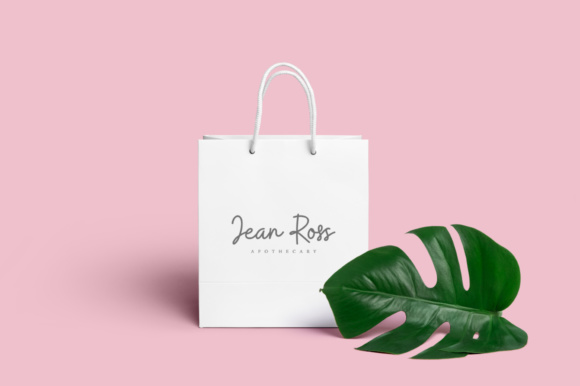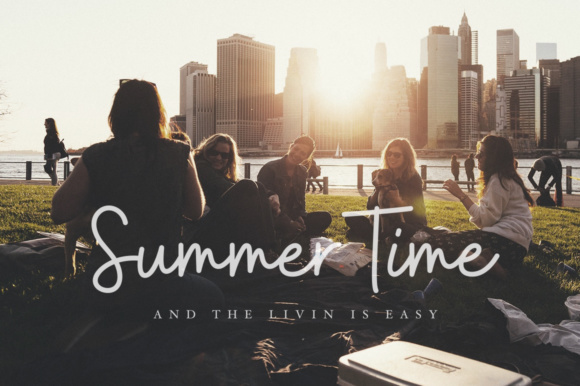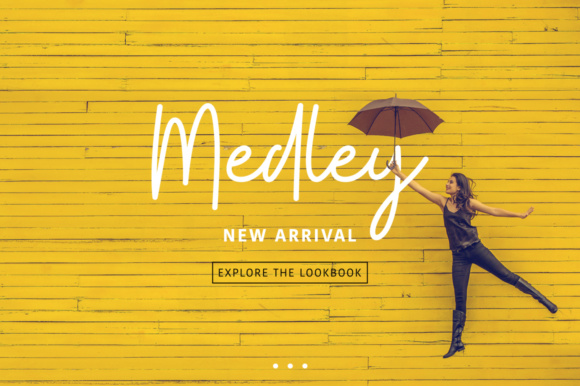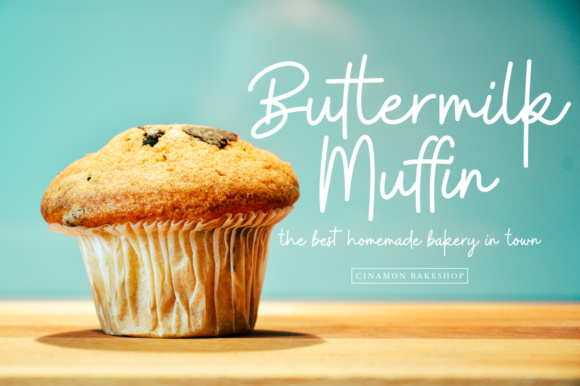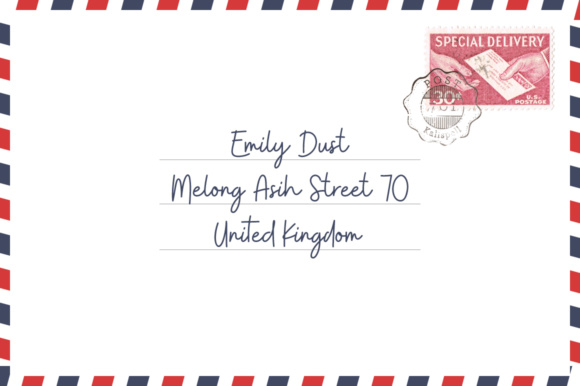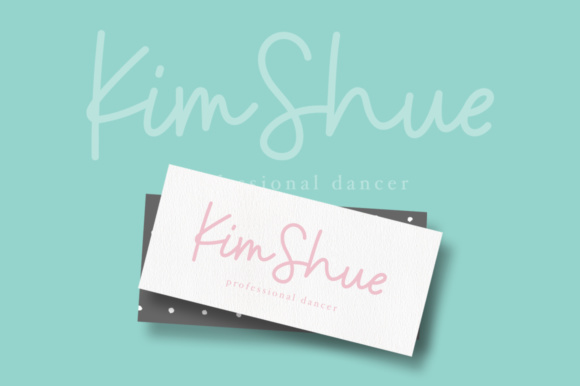
Introducing Buffalo Font: The Elegant Handwritten Font for Creative Projects
Are you a designer, crafty person, or simply someone who appreciates beautiful typography? Look no further than the Buffalo Font, a stunning handwritten font that can elevate your creative projects to the next level. With its elegant and striking letters, Buffalo is perfect for a wide range of applications, from greeting cards and magazines to branding, social media, print, packaging, and much more.
What Makes Buffalo Font So Special?
Buffalo Font is a unique and eye-catching typeface that stands out from the crowd. Its elegant and flowing script is reminiscent of traditional handwriting, yet it has a modern and sophisticated feel that makes it perfect for contemporary designs. The font’s distinctive characters, precise letter spacing, and balanced typography create a harmonious visual experience that will leave a lasting impression on your audience.
Perfect for a Wide Range of Creative Projects
Buffalo Font’s versatility is one of its greatest strengths. Whether you’re designing a greeting card, magazine, or social media post, this font will add a touch of elegance and sophistication to your work. Here are some ideas for projects where Buffalo Font would shine:
- Greeting Cards: Create beautiful, one-of-a-kind greeting cards for special occasions like weddings, birthdays, and holidays.
- Magazines and Editorials: Add a touch of elegance to your magazine or editorial design with Buffalo Font’s sophisticated script.
- Branding and Logo Design: Use Buffalo Font to create a unique and memorable brand identity that sets you apart from the competition.
- Social Media Graphics: Elevate your social media presence with stunning graphics featuring Buffalo Font.
- Print and Packaging: Use Buffalo Font to add a personal touch to your print materials, such as business cards, brochures, and product packaging.
Why Choose Buffalo Font?
With so many fonts available, why choose Buffalo Font? Here are just a few reasons why designers and crafters love this beautiful handwritten font:
- Unique and Eye-Catching: Buffalo Font’s distinctive script is sure to grab attention and leave a lasting impression.
- Elegant and Sophisticated: This font’s elegant and flowing script adds a touch of sophistication to any design.
- Versatile: Buffalo Font can be used for a wide range of creative projects, from digital designs to print materials.
- Easy to Read: Despite its elegant script, Buffalo Font is easy to read, making it perfect for body text and headlines.
Tips for Using Buffalo Font Effectively
To get the most out of Buffalo Font, here are some tips for using it effectively in your designs:
- Pair with a Simple Font: Pair Buffalo Font with a simple, clean font to create visual interest and balance.
- Use for Headlines and Titles: Buffalo Font is perfect for headlines and titles, where its elegant script can shine.
- Experiment with Colors: Try pairing Buffalo Font with different colors and textures to add depth and interest to your design.
- Don’t Overuse: Use Buffalo Font sparingly to avoid overwhelming your design. A little goes a long way!
In conclusion, Buffalo Font is a beautiful handwritten font that can elevate your creative projects to new heights. With its elegant and striking letters, versatility, and ease of use, this font is perfect for designers, crafters, and anyone looking to add a touch of sophistication to their designs. So why wait? Try Buffalo Font today and see the difference it can make in your work!